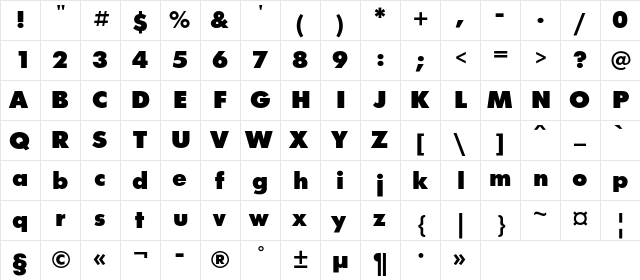
FuturisXC Bold
Design Context for FuturisXC Typeface
FuturisXC channels digital-age aesthetics through its sharp, structured letterforms — ideal for brands that want to signal innovation. Its bold stroke weight gives it real presence on the page.
Pro Tip: Use FuturisXC in combination with a neutral sans for body text. Let it define the brand voice in headlines while keeping reading comfortable elsewhere.